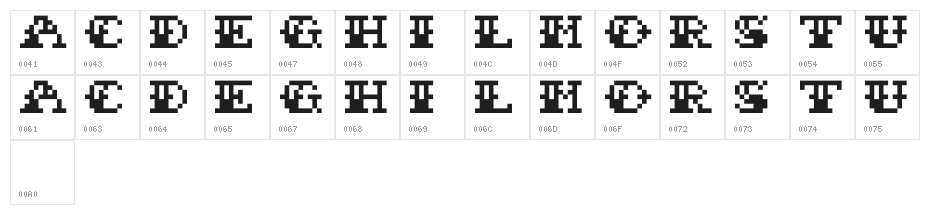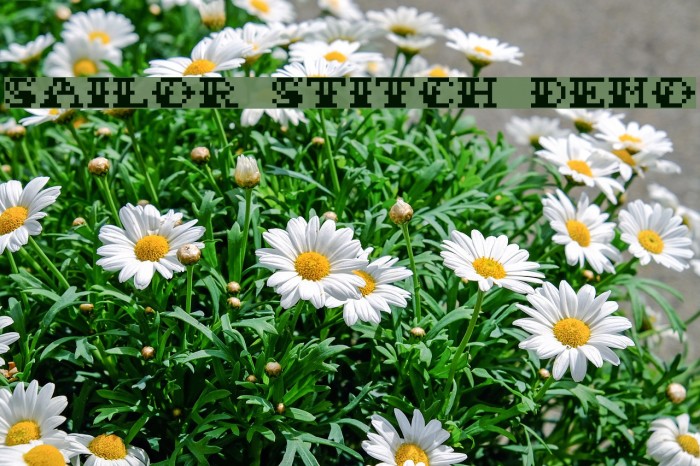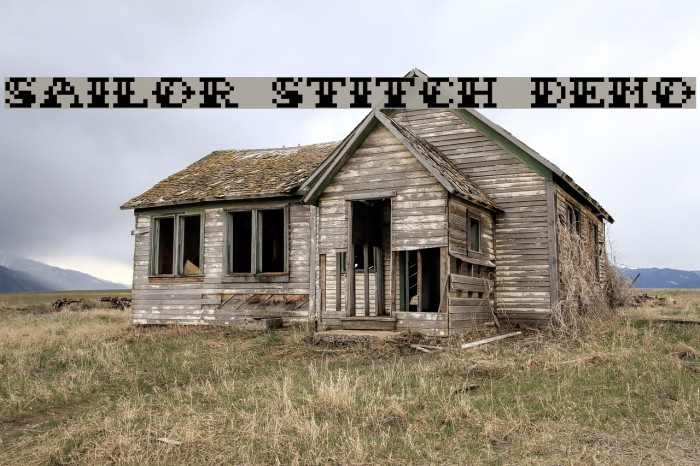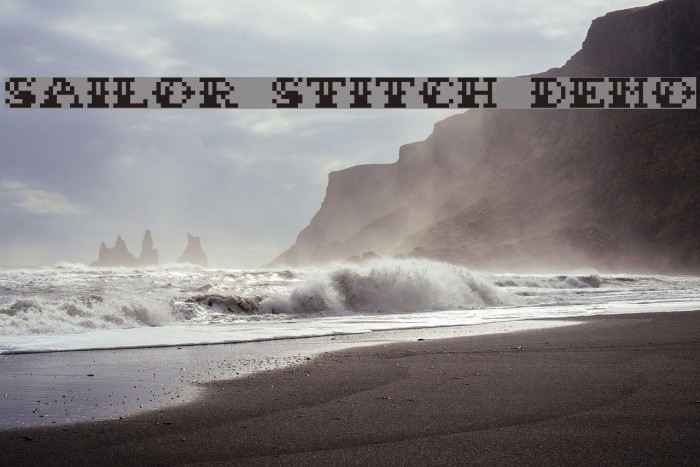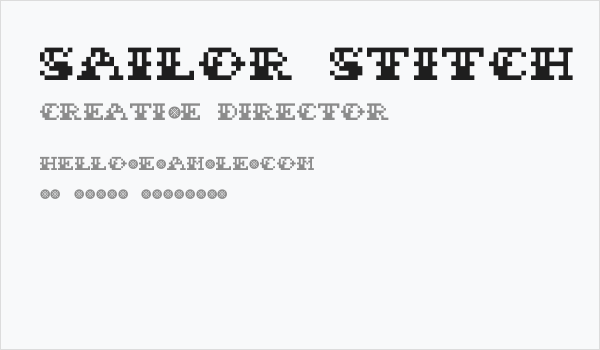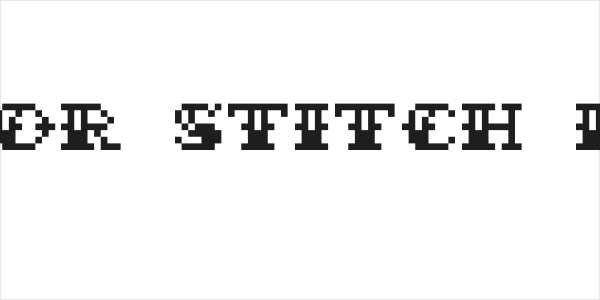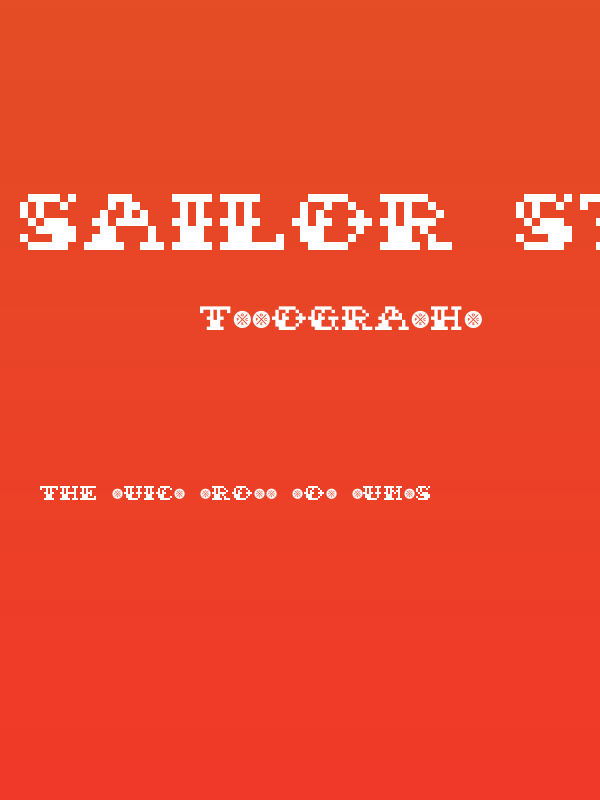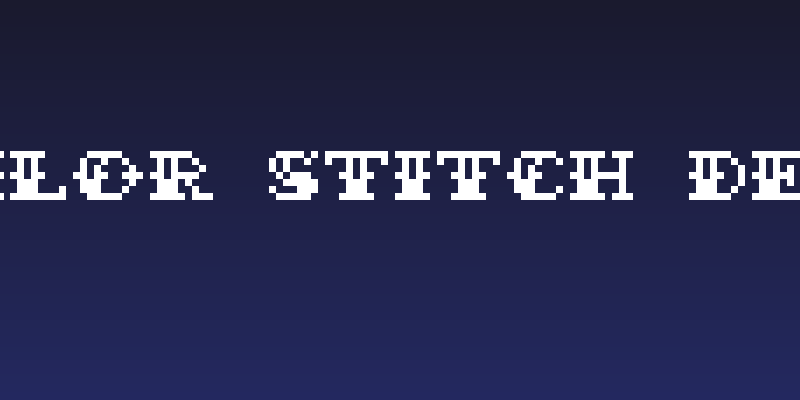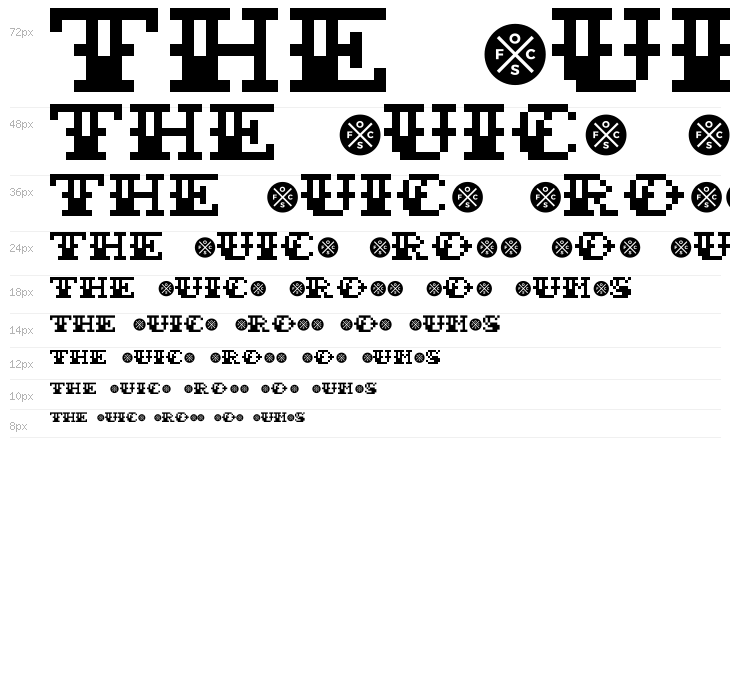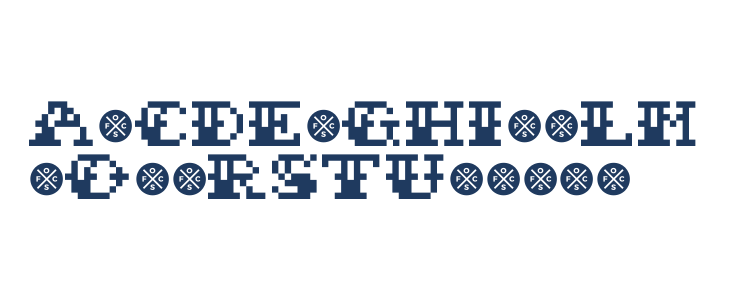
Sailor Stitch Demo Font
Sailor Stitch Demo Description
This font features a unique pixelated design reminiscent of classic video game graphics. Each character is constructed with a blocky, grid-like appearance, giving it a retro and digital feel. The uppercase letters are bold and prominent, while the lowercase letters maintain the same pixelated style but are slightly smaller in size. The numbers and special characters follow the same design principle, ensuring consistency across the entire typeface. The font's distinct style makes it stand out, ideal for projects that aim to evoke nostalgia or a tech-oriented theme.
| Overall Style | Retro, Digital |
| Proposed Projects | Ideal for video game design, retro-themed posters, digital art projects, and tech-related branding. |